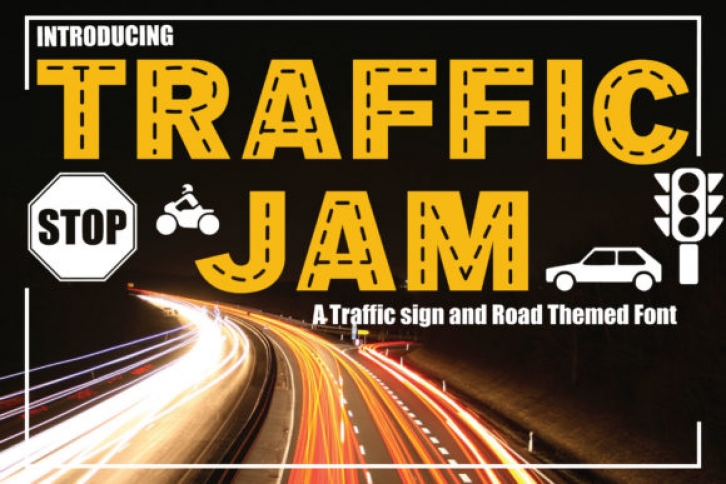
Traffic Jam is a cool, bold, and fun display font with traffic related items. No matter the topic, this font will be an incredible asset to your fonts’ library, as it has the potential to elevate any creation.